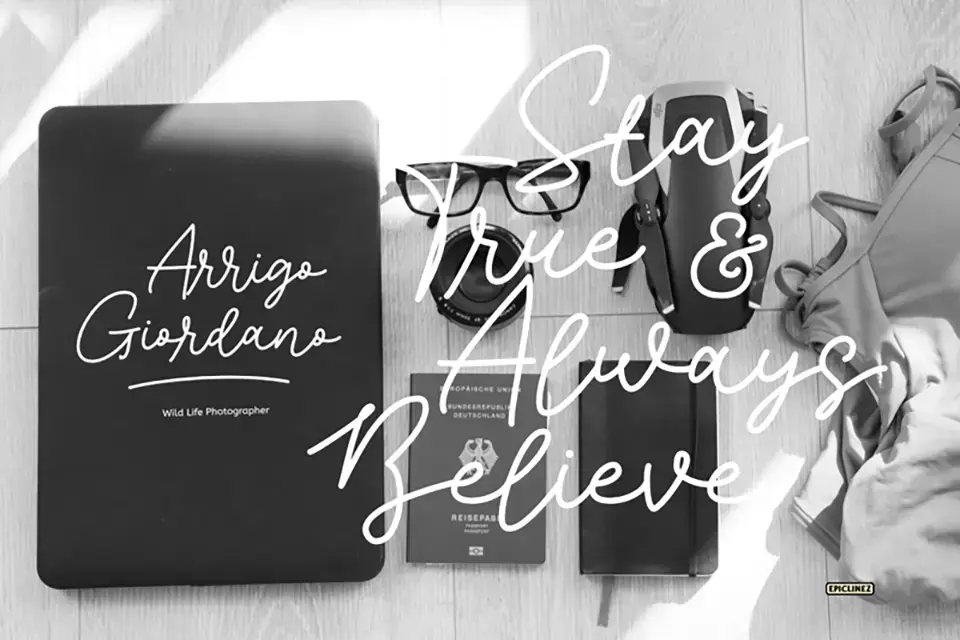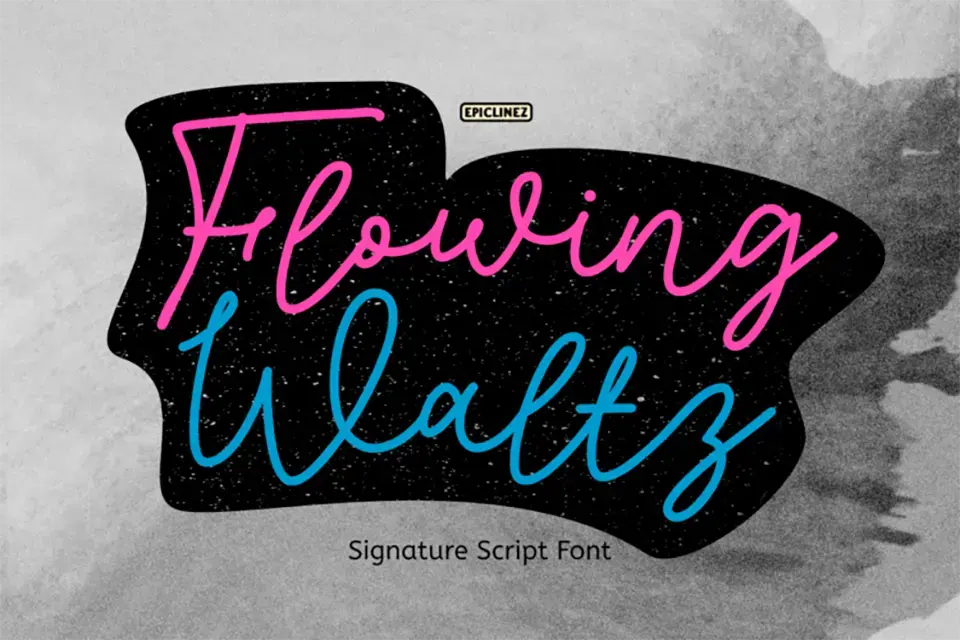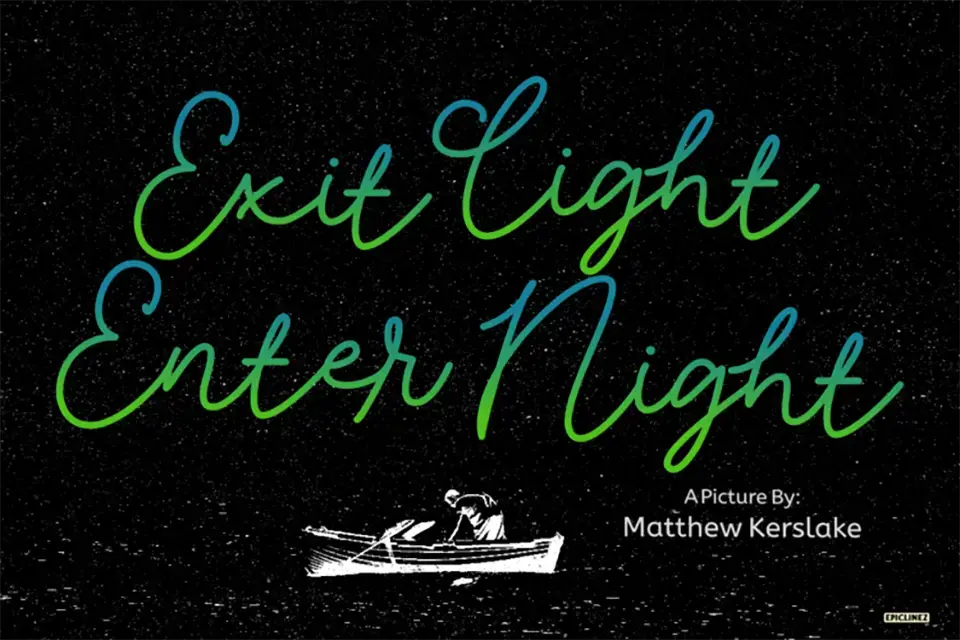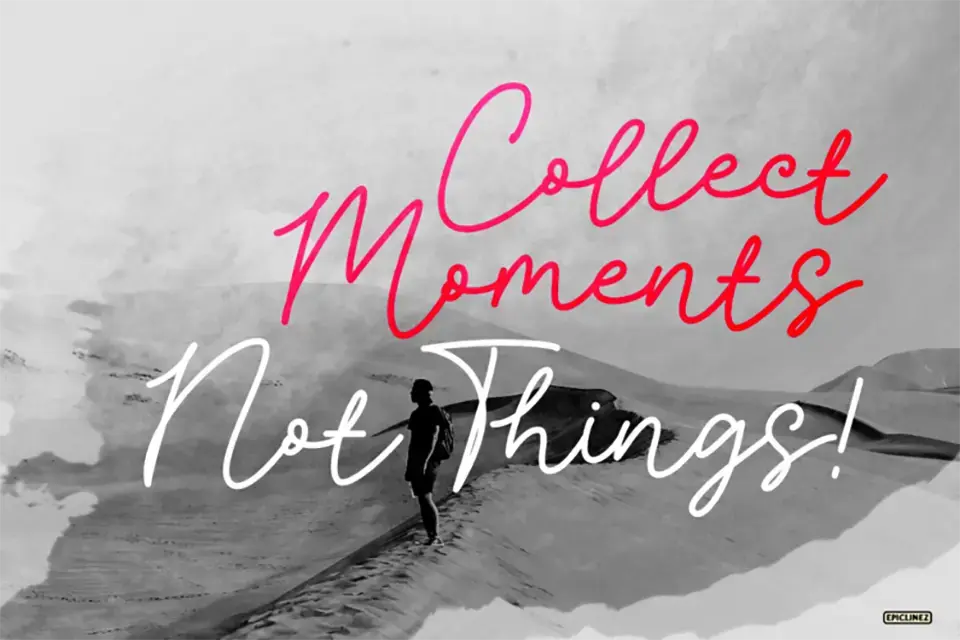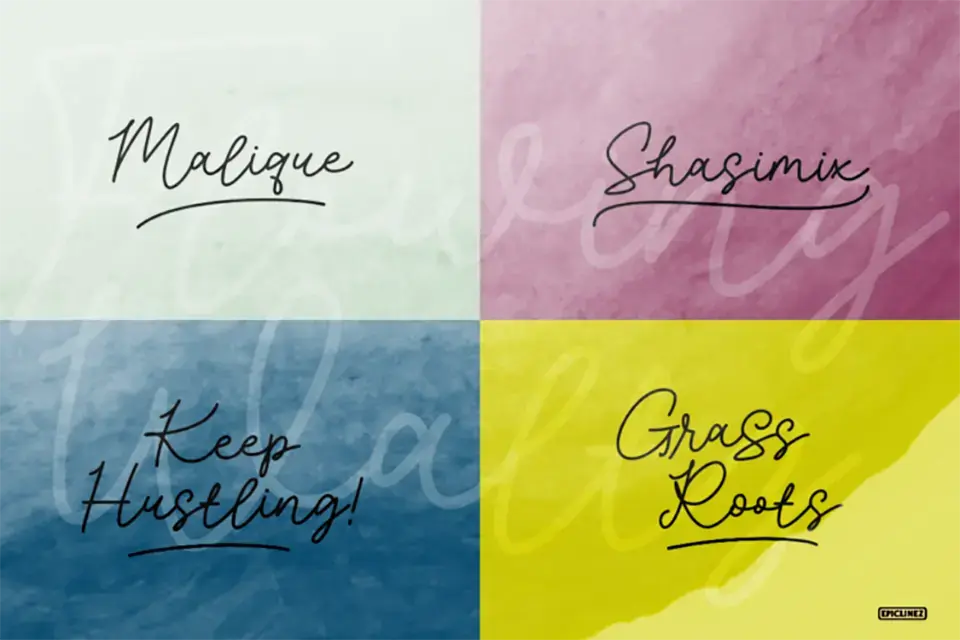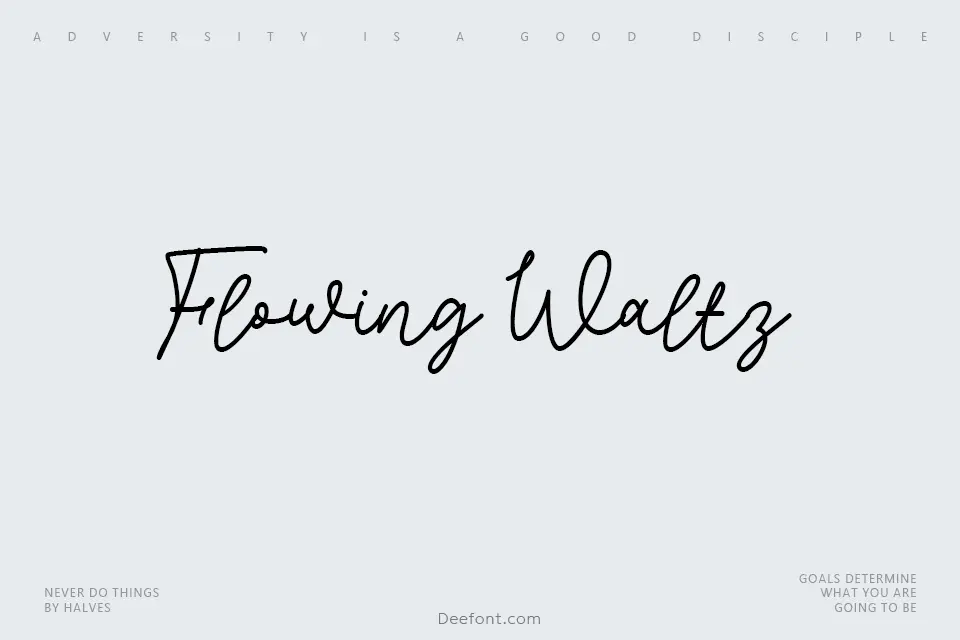
Flowing Waltz Font
Flowing Waltz is a stylish signature script font featuring flowing, naturally connected letterforms with an elegant handwritten aesthetic. The font delivers a sophisticated cursive style perfect for branding design, logo creation, wedding invitations, and decorative typography. With its smooth flowing strokes and refined characteristics, Flowing Waltz brings authenticity and artistic flair to posters, packaging, and title designs. Supporting 67+ languages with comprehensive character sets including accented characters and punctuation, this versatile script font adapts well to display applications and creative branding needs.